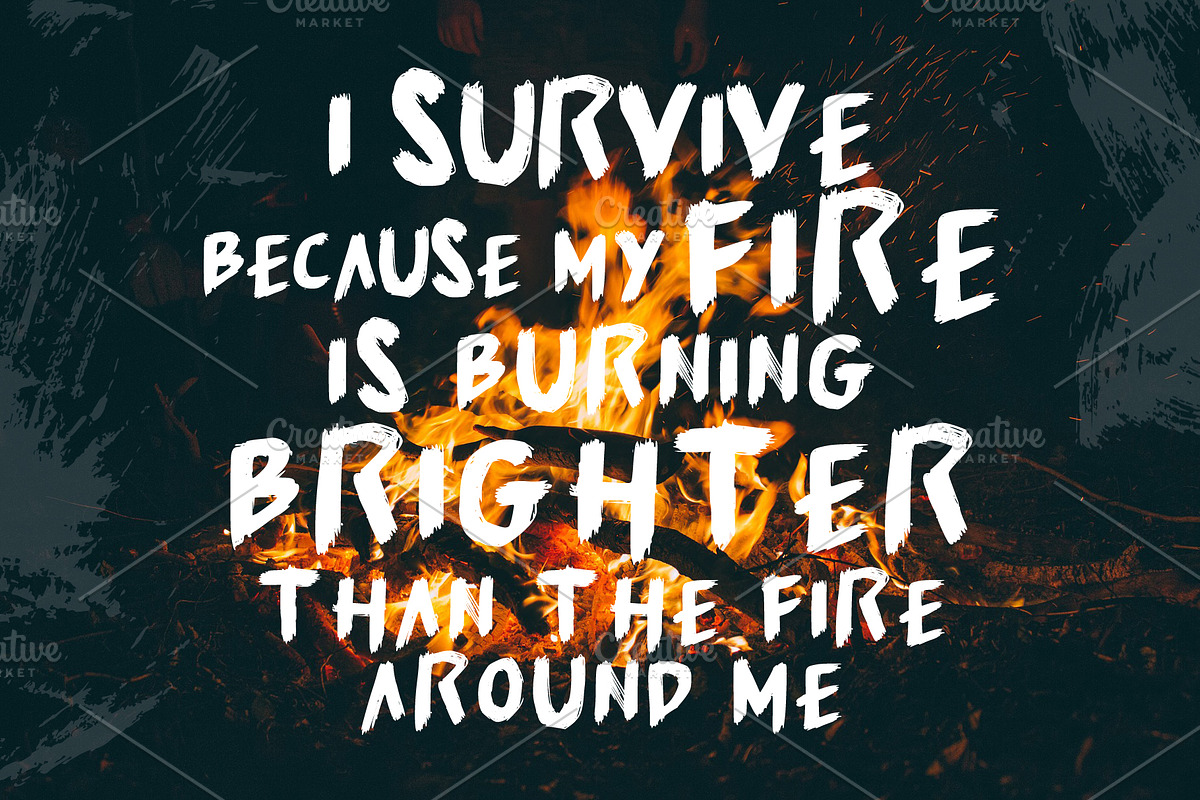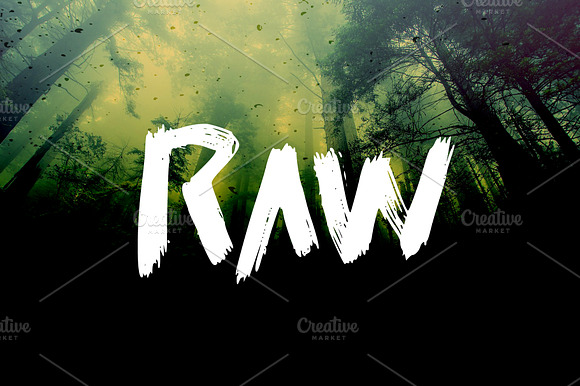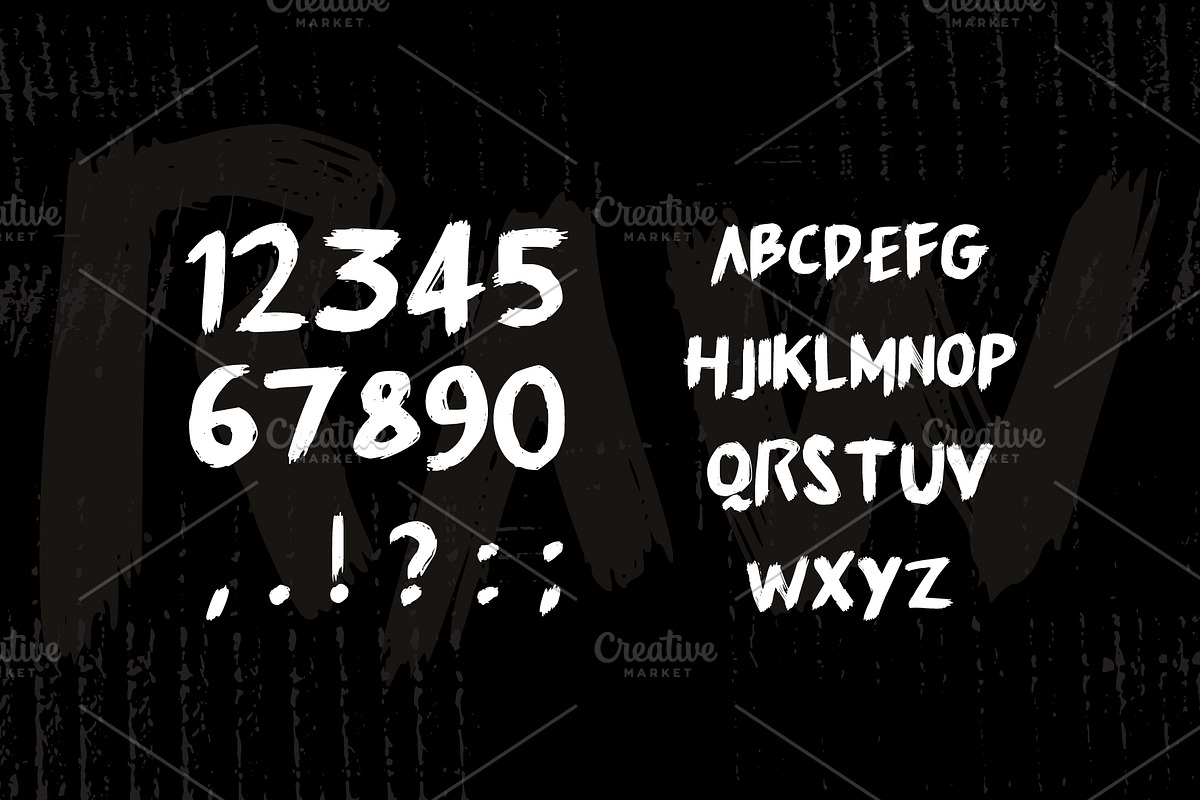
RAW - Brush Sans Serif font
A modern hand-made bold brush sans serif font
a font inspired by the wilderness and untamed nature, unique hand-made, suitable for nature, outdoor and even street style theme
RAW - Brush Sans Serif font by MoonBandit fits naturally into Branding, posters, packaging, typography.